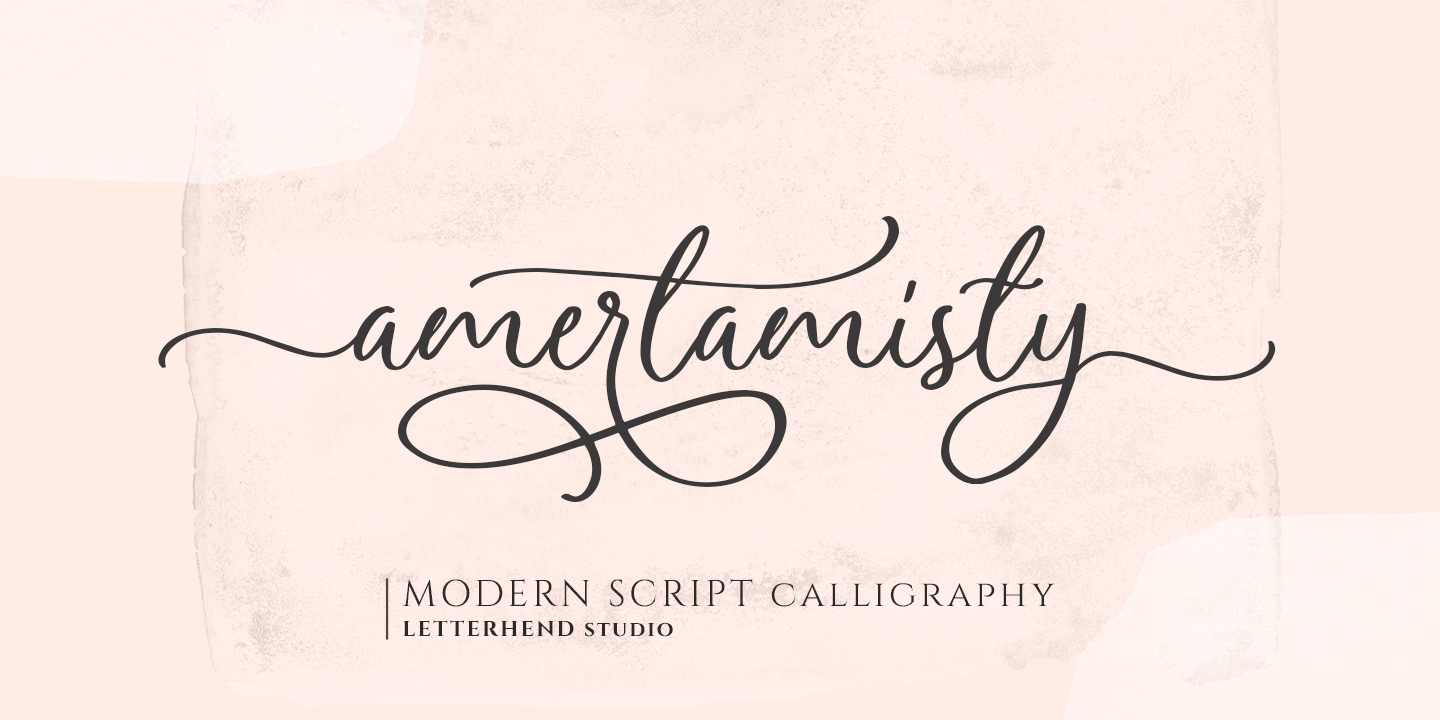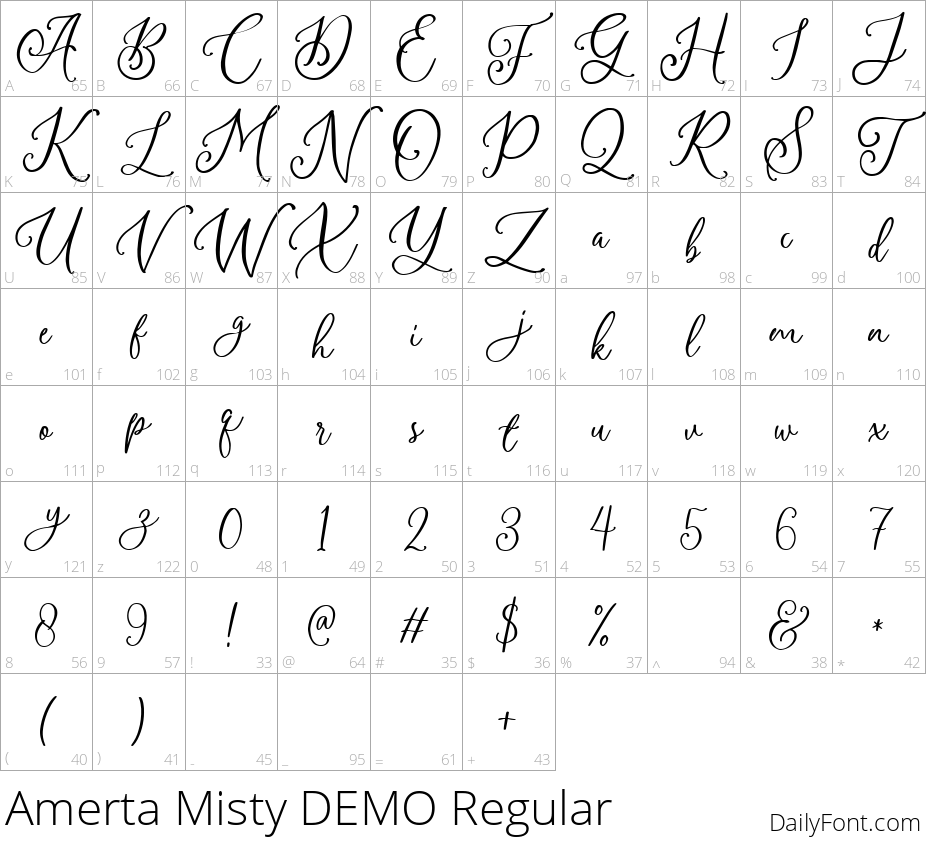
Amerta Misty
Introducing Amerta Misty, a stunning modern calligraphy font designed for the contemporary creator. With its elegant swashes and fluid design, Amerta Misty is the perfect choice for a variety of projects, including headlines, logotypes, apparel designs, invitations, branding, and packaging. This versatile typeface blends artistic sophistication with readability, making it ideal for both personal and commercial use.
Crafted with attention to detail, Amerta Misty includes a full set of uppercase and lowercase letters, punctuation, symbols, numerals, and stylistic set alternates that truly showcase its unique character. Additionally, it features ligatures, enhancing the flow of your text and adding a personalized touch. With multilingual support, Amerta Misty ensures that your brand can reach a wider audience and resonates across diverse cultures. Whether you're designing for a wedding invitation or creating eye-catching advertising materials, Amerta Misty will elevate your design to new heights, making it an essential asset in your typography collection.